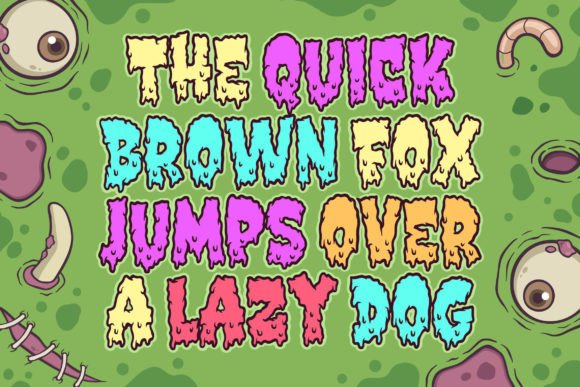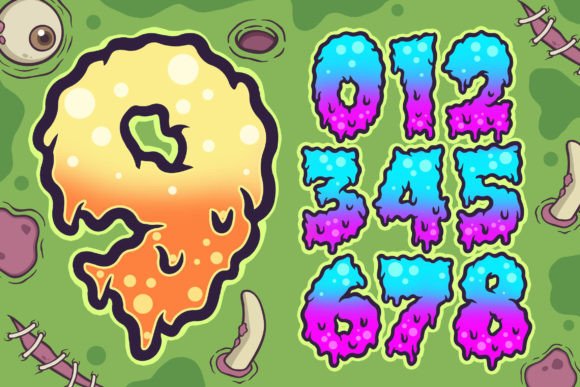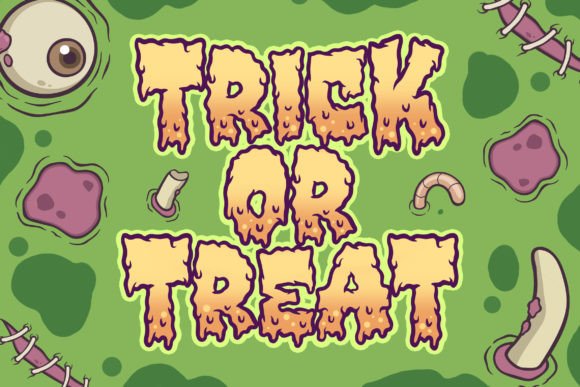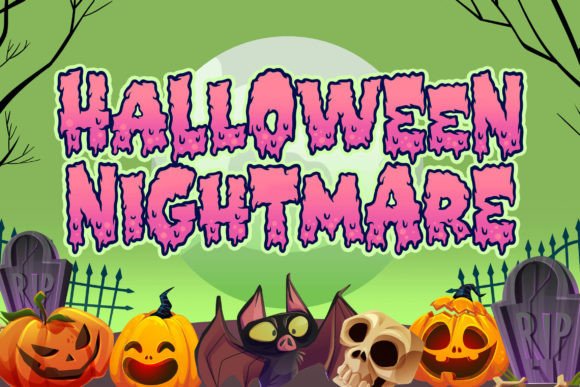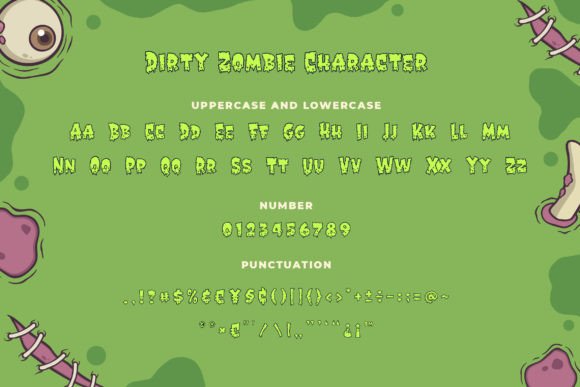
Unleashing the Spooky Spirit: The Dirty Zombie Font
As the clock strikes midnight on Halloween night, a wave of creativity washes over us, inspiring us to create something truly terrifying. The spooky atmosphere, the creepy decorations, and the eerie sounds all combine to spark our imagination. For designers, this is the perfect moment to let their creativity run wild and bring their darkest visions to life.
Enter the Dirty Zombie Font, a fun and cool horror display font that’s perfect for adding a touch of spooky flair to your Halloween or horror-themed projects. With its quirky, creepy design, this font is a valuable addition to any designer’s toolkit. Whether you’re creating a poster, a social media graphic, or a website design, the Dirty Zombie Font is sure to add a haunting charm that will leave your audience shivering with delight.
- Font Family: Dirty Zombie Font is a unique, horror-themed font family that includes 4 styles: Regular, Bold, Italic, and Bold Italic.
- Size: The font family consists of a total of 1200 glyphs, providing a wide range of characters for creative expression.
- Unique Characteristics: Dirty Zombie Font features a distressed, horror-inspired aesthetic with bold lines, uneven edges, and a gritty texture, perfect for creating a spooky atmosphere in designs.
Dirty Zombie Font Review
The Dirty Zombie Font is a bold, eye-catching typeface that’s perfect for creating a gritty, post-apocalyptic vibe. I love the ✨ eclectic mix of distressed textures and abstract letterforms that give this font a unique, handmade feel.
- ✨ The font’s distressed textures and imperfections add a lot of character and visual interest.
- ✨ The font is highly customizable, making it easy to adjust the look and feel to suit your specific design needs.
- ✨ The font is well-suited for use in graphic novels, video games, and other forms of media that require a gritty, action-packed aesthetic.
- ⚠️ The font may be too over-the-top for some designs, so be careful not to overdo it.
- ⚠️ Some users may find the font’s distressed textures to be too distracting or difficult to read.
- ⚠️ The font may not be suitable for use in formal or professional contexts, where a more conservative aesthetic is required.
Overall, I think the Dirty Zombie Font is a great choice for designers who want to create a bold, attention-grabbing visual style. While it may not be suitable for every project, it’s a versatile and highly customizable font that’s sure to add some excitement to your designs.
The Dirty Zombie Font is perfect for horror-themed designs, such as zombie apocalypse posters, Halloween decorations, or spooky invitations. To get the most out of it, try combining it with bold, distressed textures and eerie color schemes.
Experiment with different font sizes and styles to create a sense of urgency or chaos. You can also use the Dirty Zombie Font to add a touch of humor or irony to your designs.